Bold (weight)
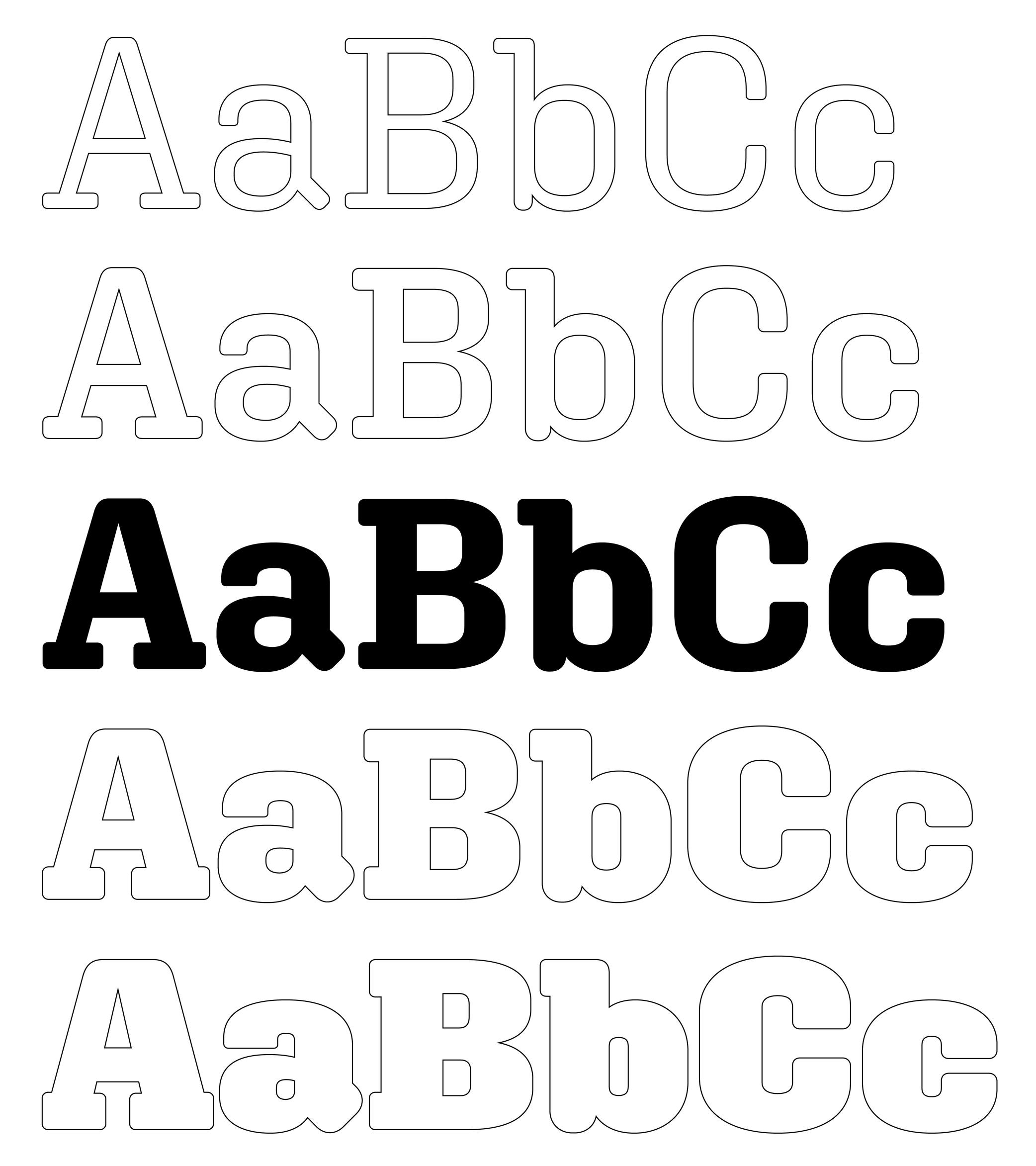
While Regular is the most common weight for body text, Bold is a style often chosen to highlight a word or a sentence with a stronger emphasis than Italic.